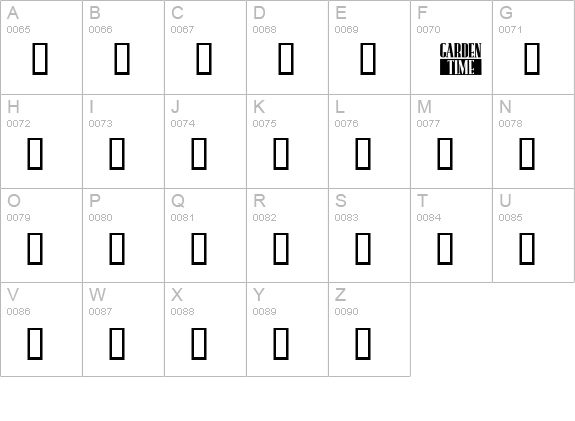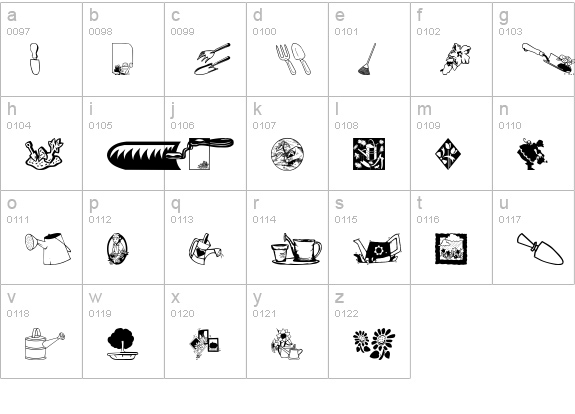
Garden Time font is a whimsical and charming typeface that brings a touch of nature to your designs. With its organic shapes and flowing lines, this font captures the essence of a peaceful garden setting. Perfect for adding a playful and inviting feel to your projects, Garden Time font is ideal for various design applications such as greeting cards, invitations, branding, and more. What makes Garden Time font even more appealing is that it is available for free download at FontsMarket.com. This means you can easily access this delightful font and incorporate it into your creative projects without any cost. So, add a touch of natural beauty to your designs with Garden Time font today!